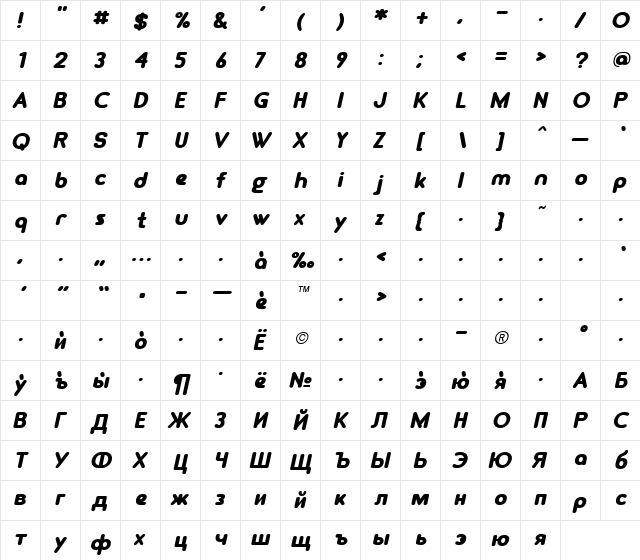
OvalCyr Italic
Design Context for OvalCyr Typeface
OvalCyr takes a measured approach to typography — its balanced proportions and neutral character make it a reliable workhorse for both digital and print work. The slanted form adds forward momentum and visual energy.